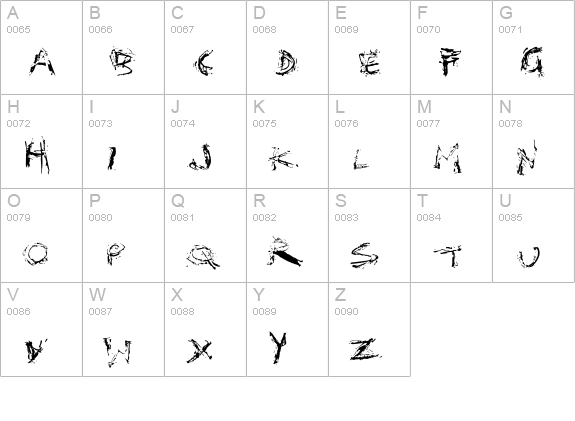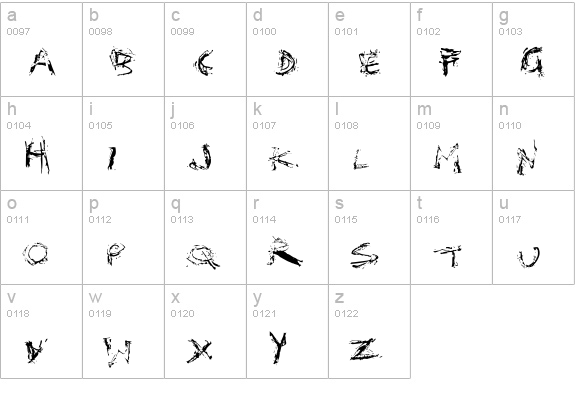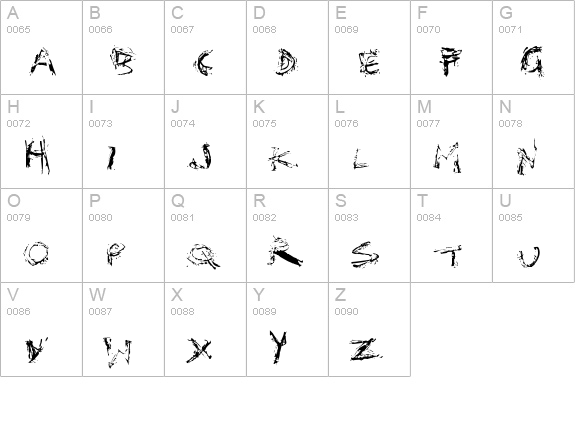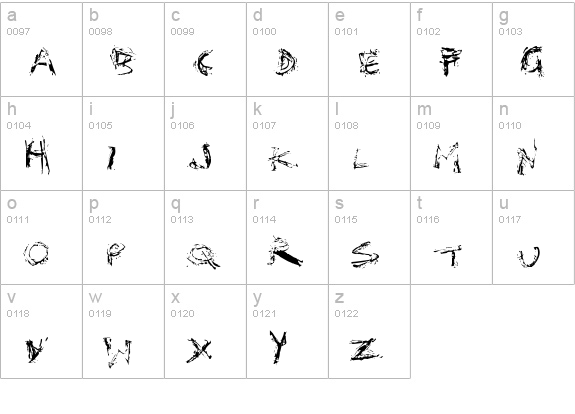
Distortia Font Details
Distortia font is a striking and dynamic typeface that exudes creativity and boldness. With its unique distorted design, this font adds a touch of edginess to any project, making it perfect for eye-catching headlines, posters, and branding materials. The letters in Distortia font appear to be shifting and bending, creating a sense of movement and intrigue on the page. What makes Distortia font even more appealing is that it is available for free download at FontsMarket.com. This means that you can easily access this captivating font to enhance your designs without any cost involved. Whether you are looking to make a statement with your typography or simply want to add a touch of flair to your work, Distortia font is a fantastic choice that is both versatile and visually captivating. Download it today and let your creativity run wild!